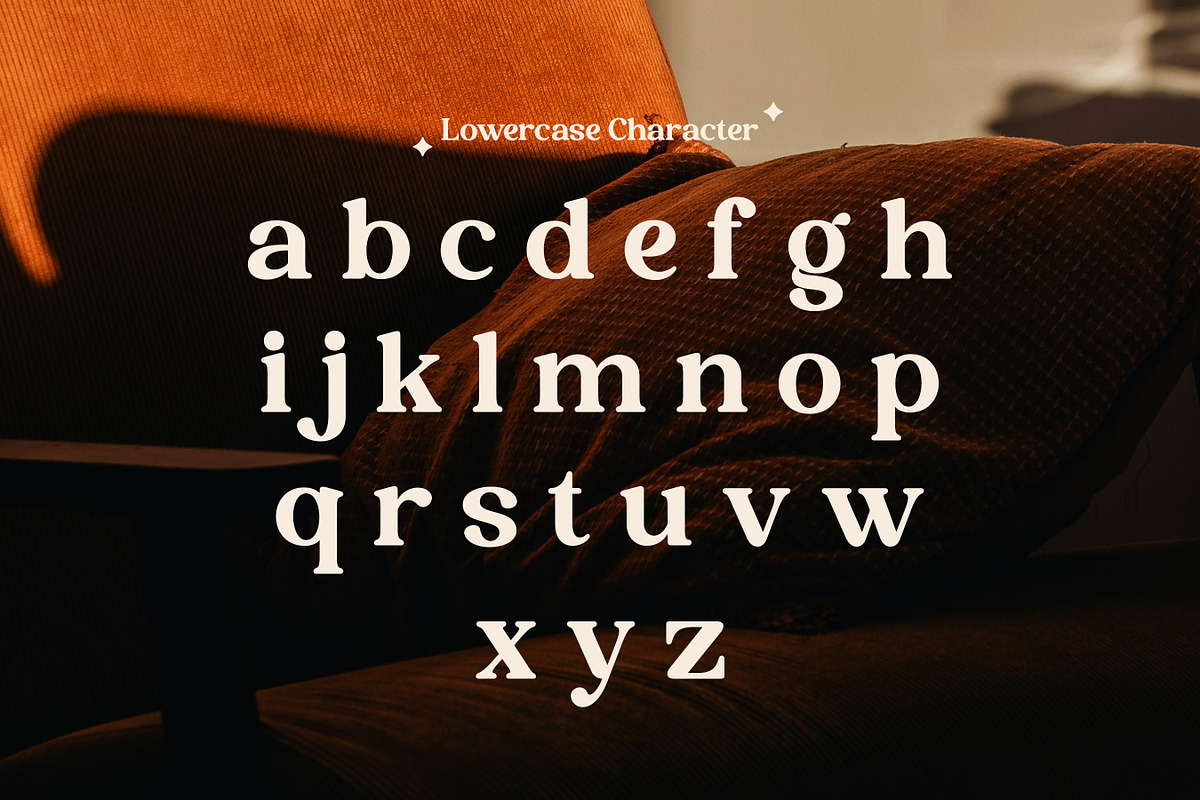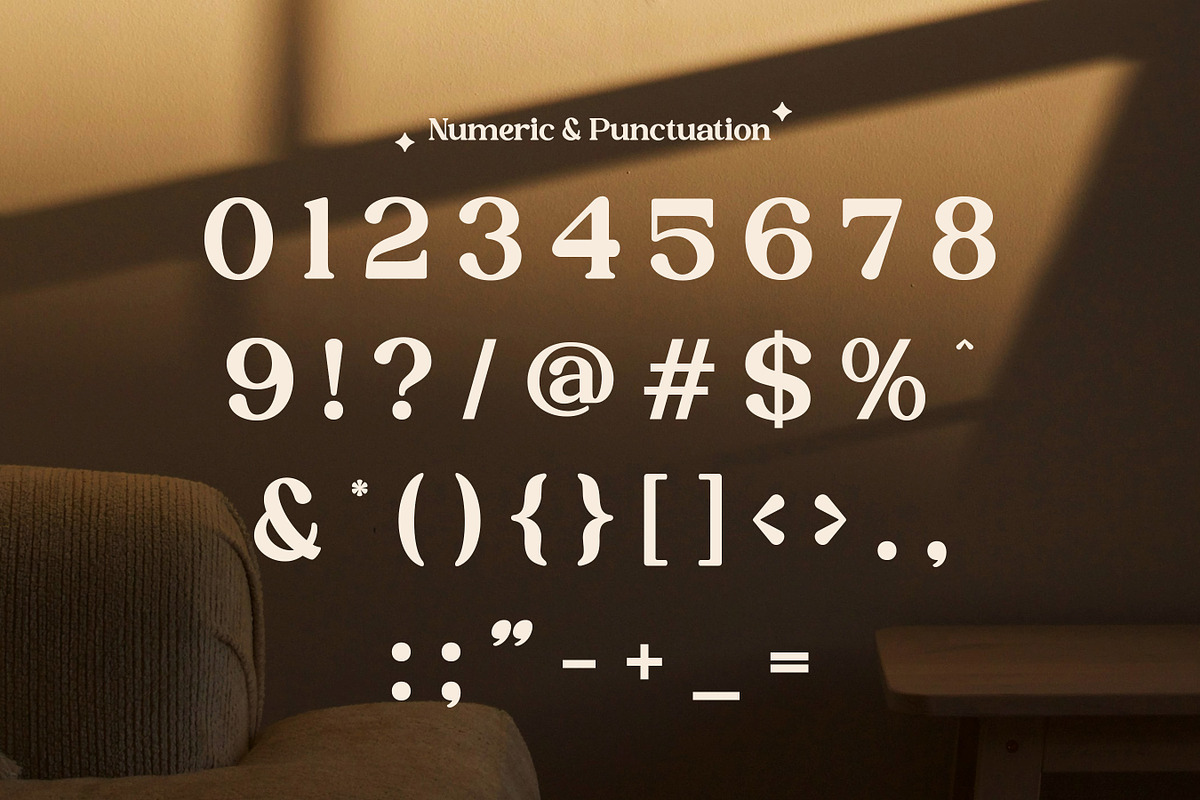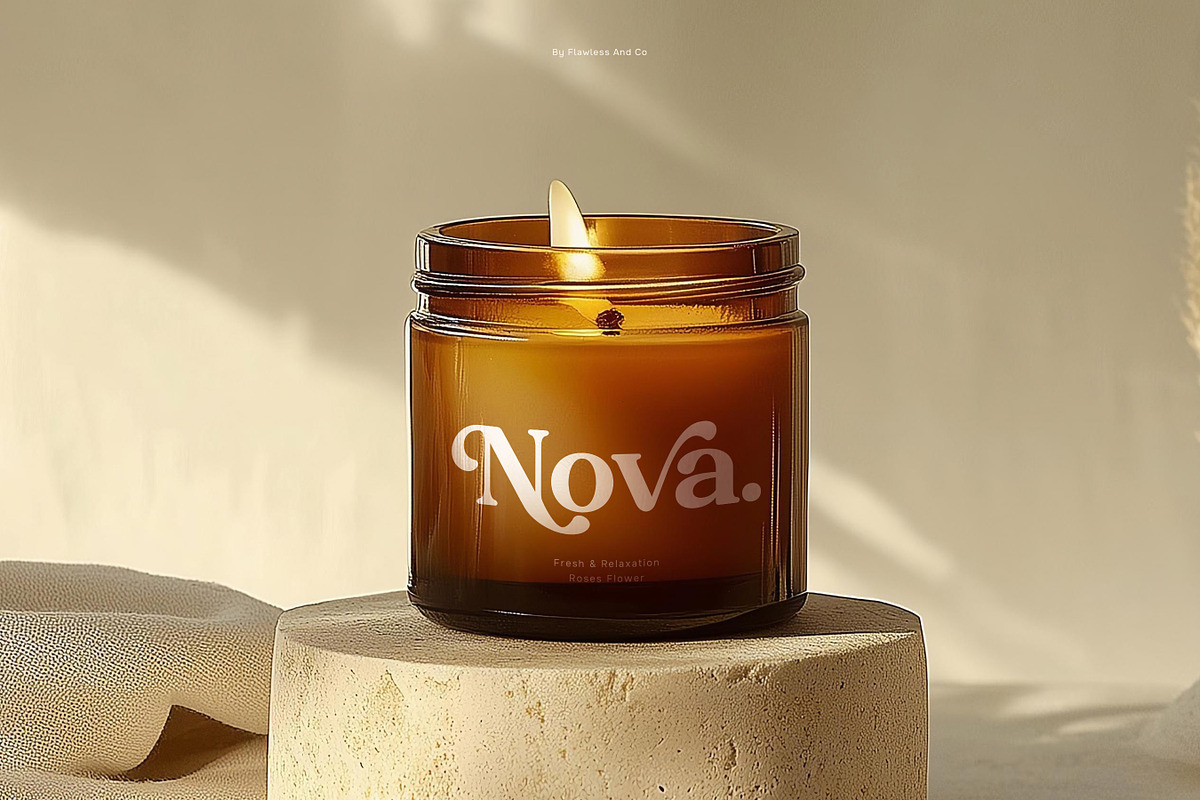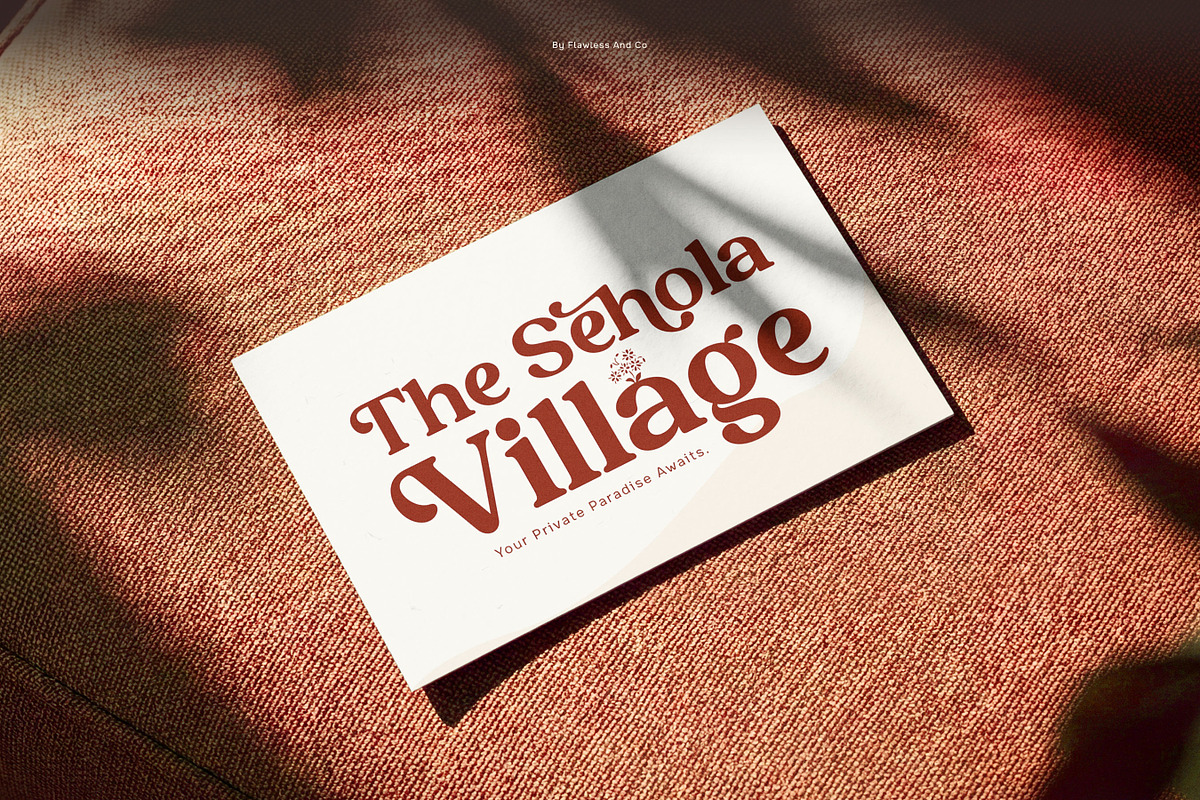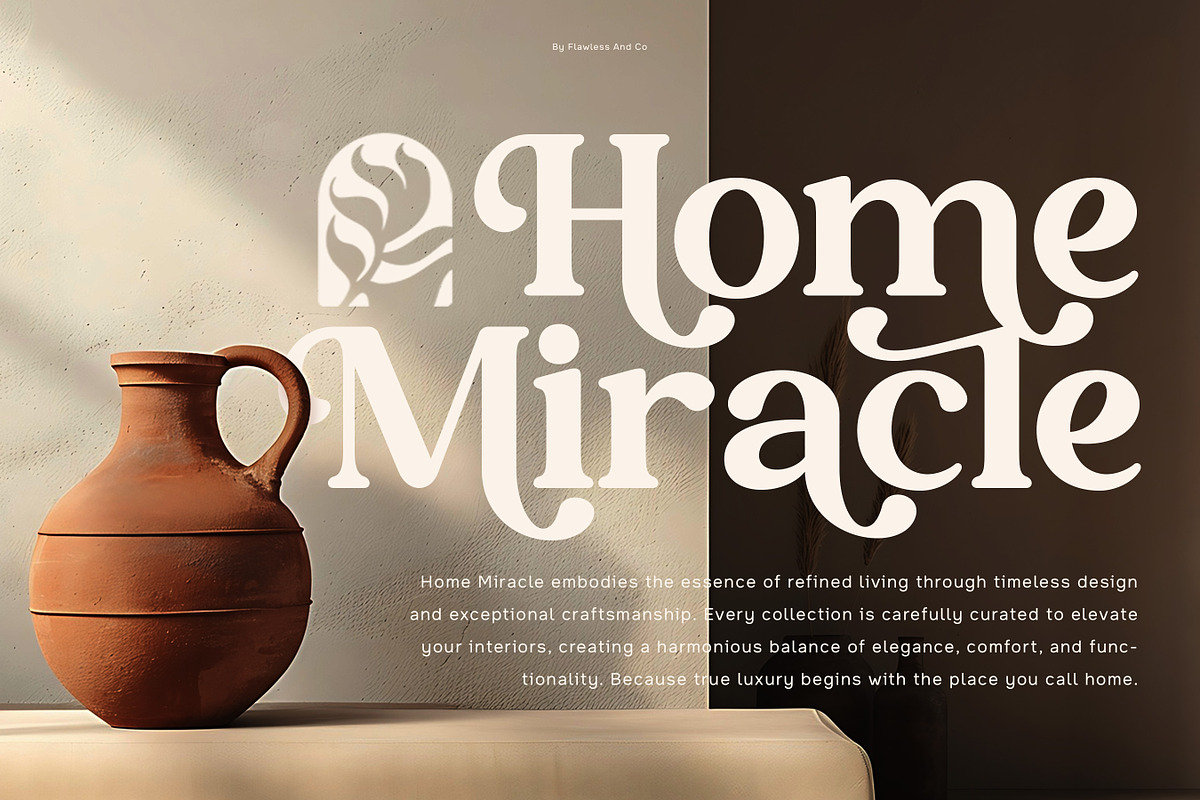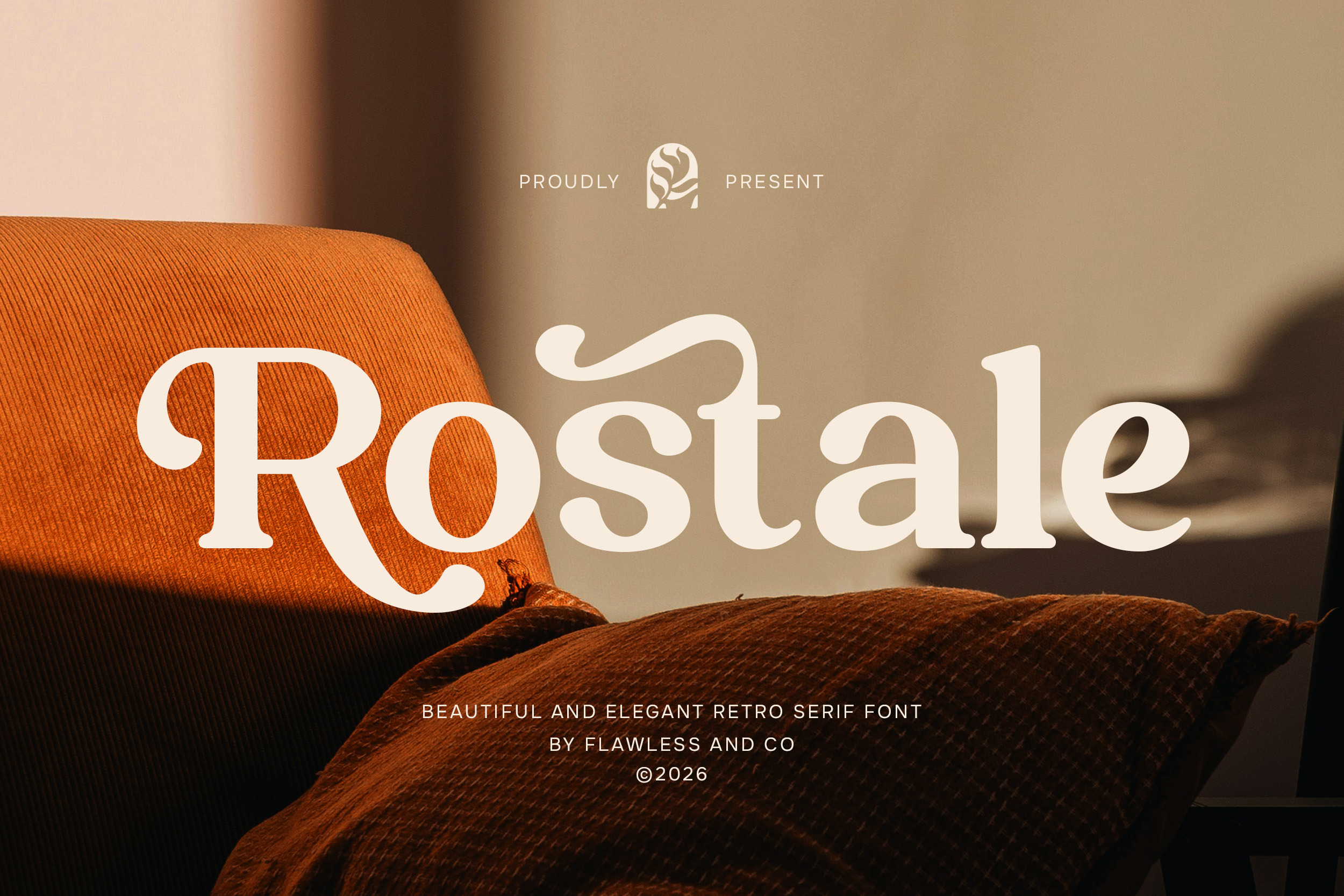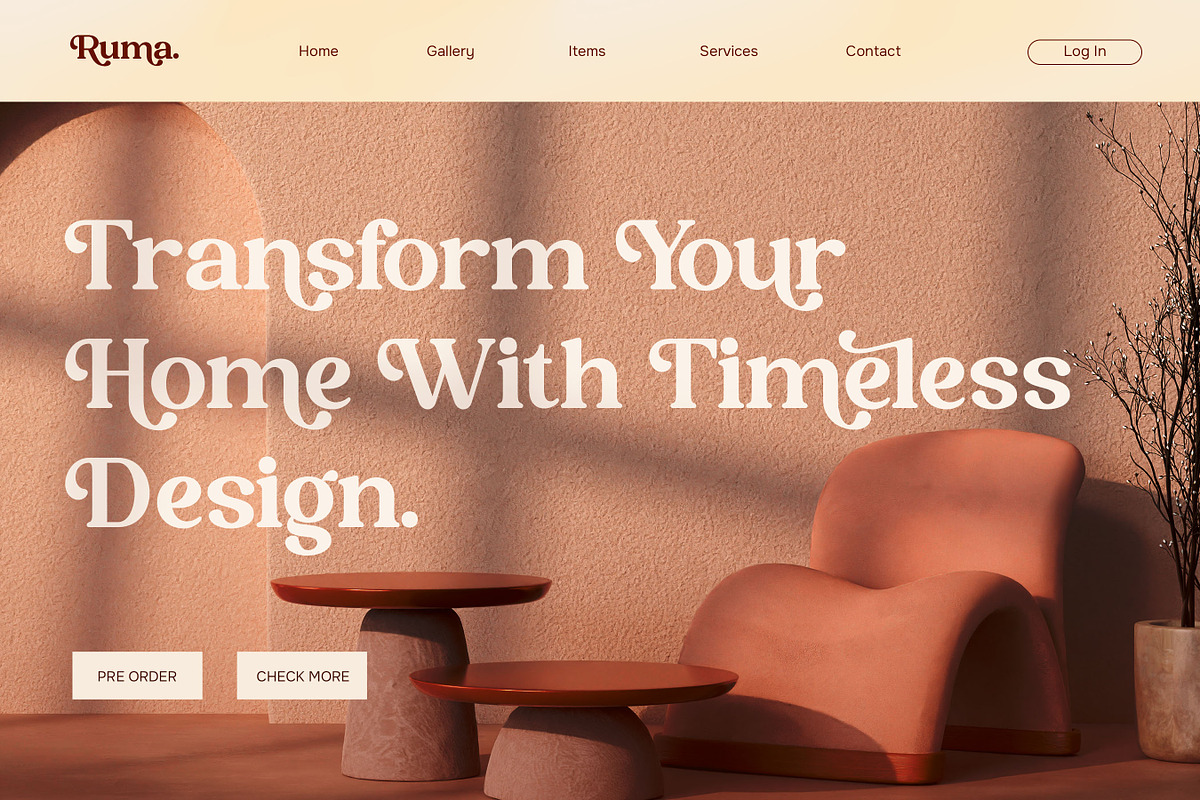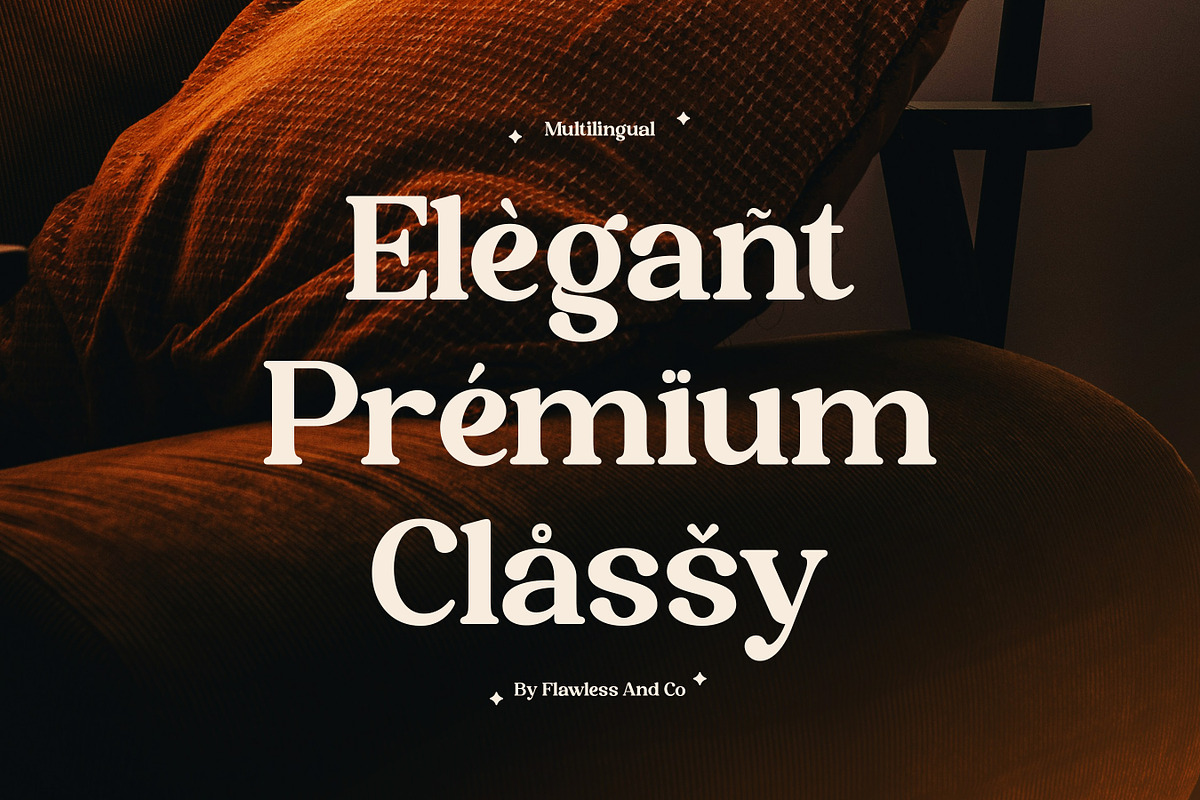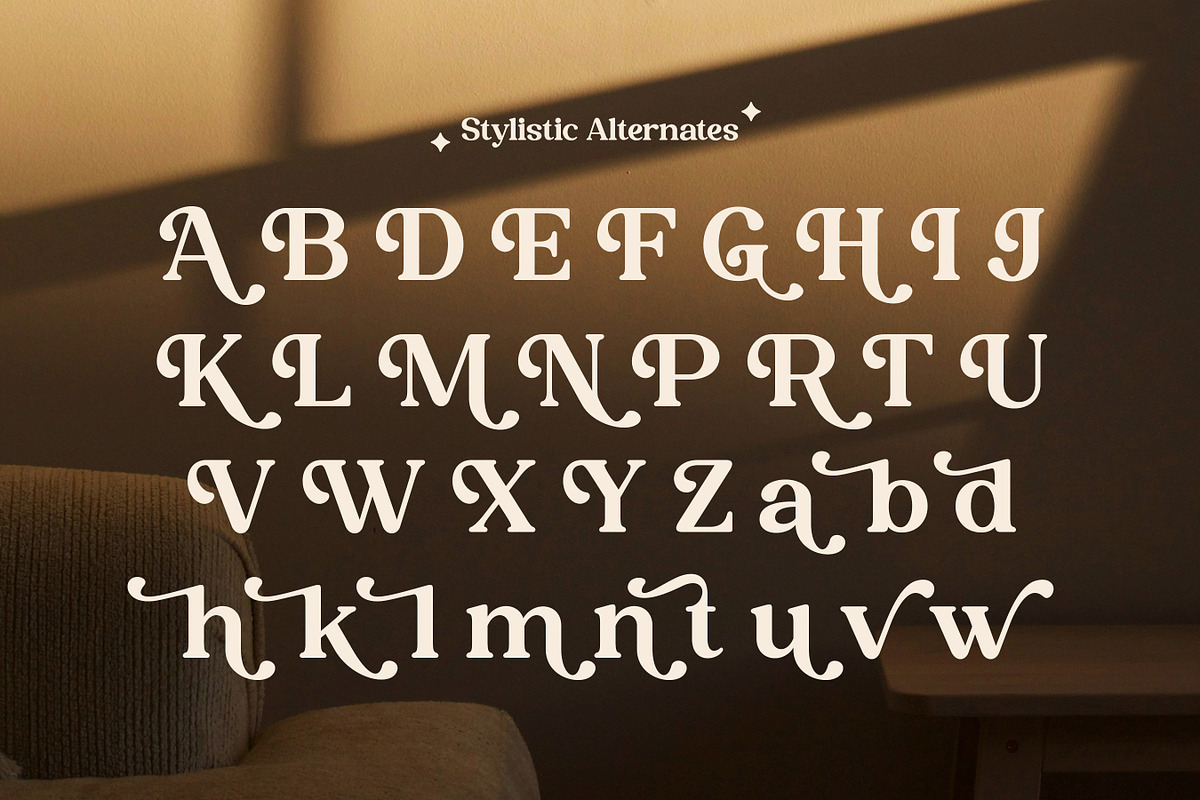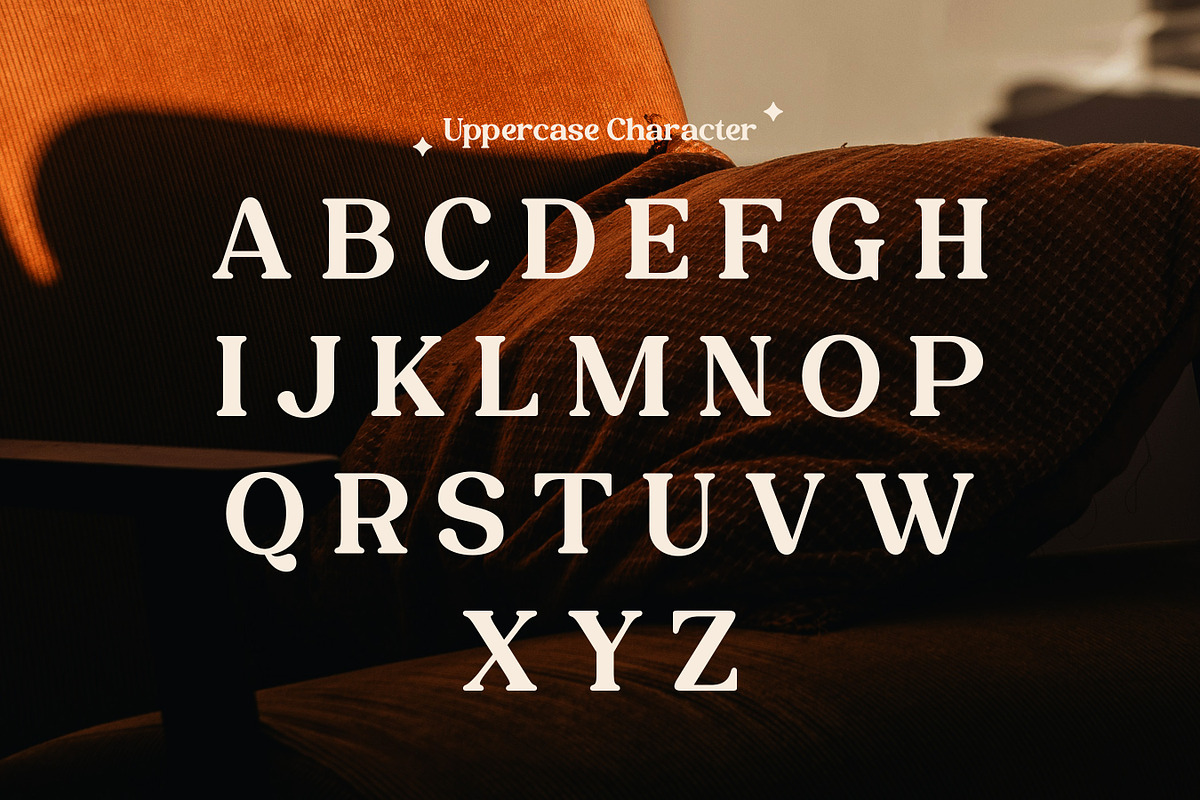
Rostale - Elegant Retro Serif Font
Rostale is a beautifully crafted retro serif font designed to capture the elegance of classic typography with a fresh modern perspective. Featuring refined serif details, flowing curves, and vintage-inspired letterforms, Rostale delivers a sophisticated visual style that feels graceful, stylish, and timeless. Its distinctive character creates the perfect balance between retro nostalgia and contemporary elegance, making it a versatile choice for premium design projects.
Alternates & Ligatures
Who Should Use Rostale?
Rostale is ideal for designers, creative studios, boutique brands, and entrepreneurs looking for a serif font that combines elegant styling with retro-inspired character. It’s especially suited for projects that require sophisticated typography with a timeless vintage appeal.
Suitable For:
Luxury branding and logo design
Fashion and beauty brands
Editorial and magazine layouts
Packaging and product presentation
Boutique and lifestyle businesses
Wedding invitations and stationery
Social media content
Elegant retro typography
Marchandise design